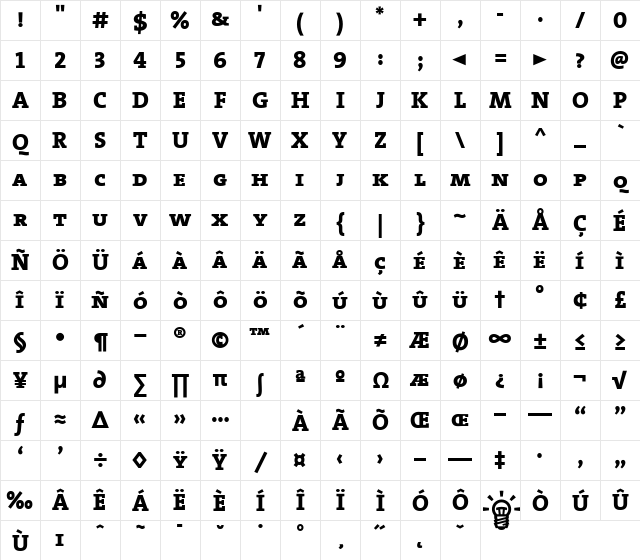
TheSerifCaps-ExtraBold Extra Bold
Style: Extra Bold
TheSerifCaps-ExtraBold Family
Design Context for TheSerifCaps-ExtraBold
TheSerifCaps-ExtraBold carries the refined structure of traditional serif typography, with bracketed terminals and considered proportions that communicate credibility and craft. Its bold stroke weight gives it real presence on the page.